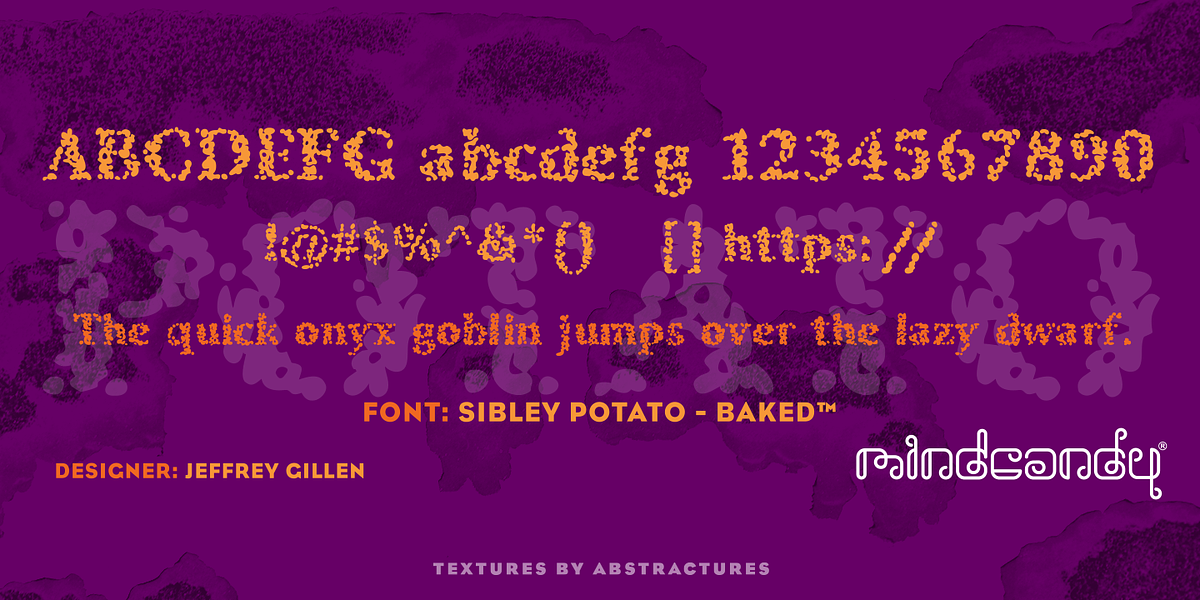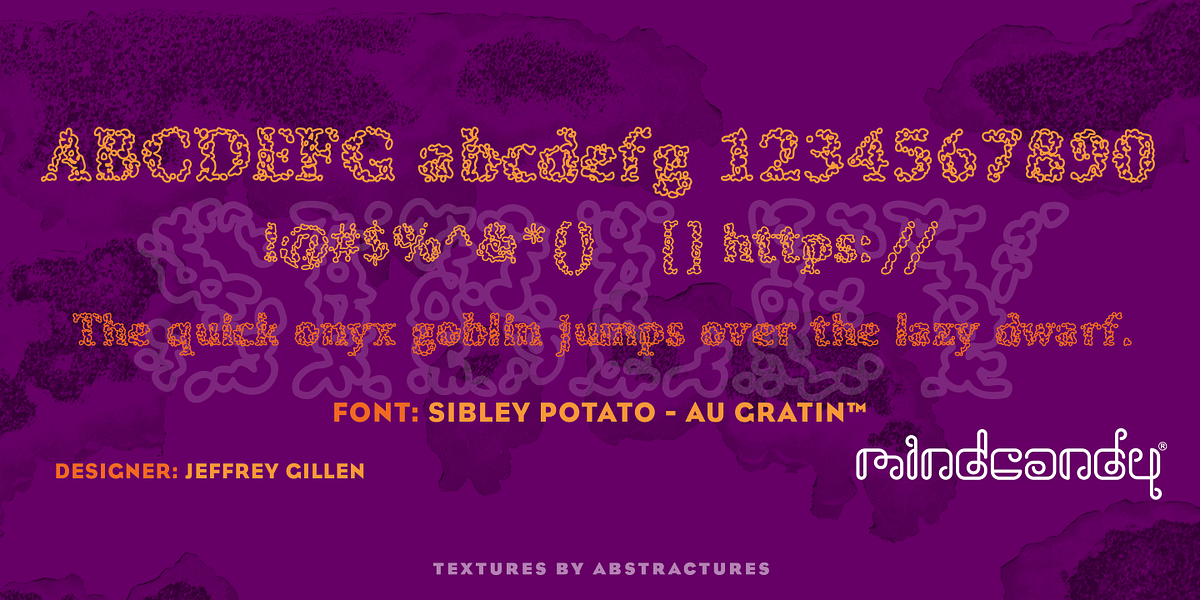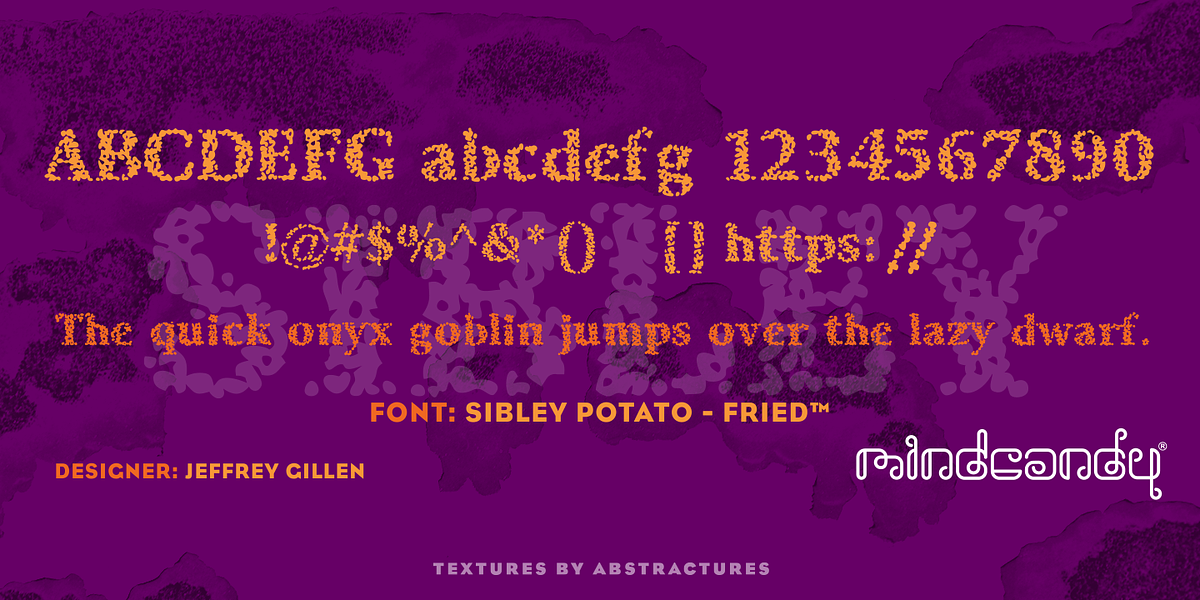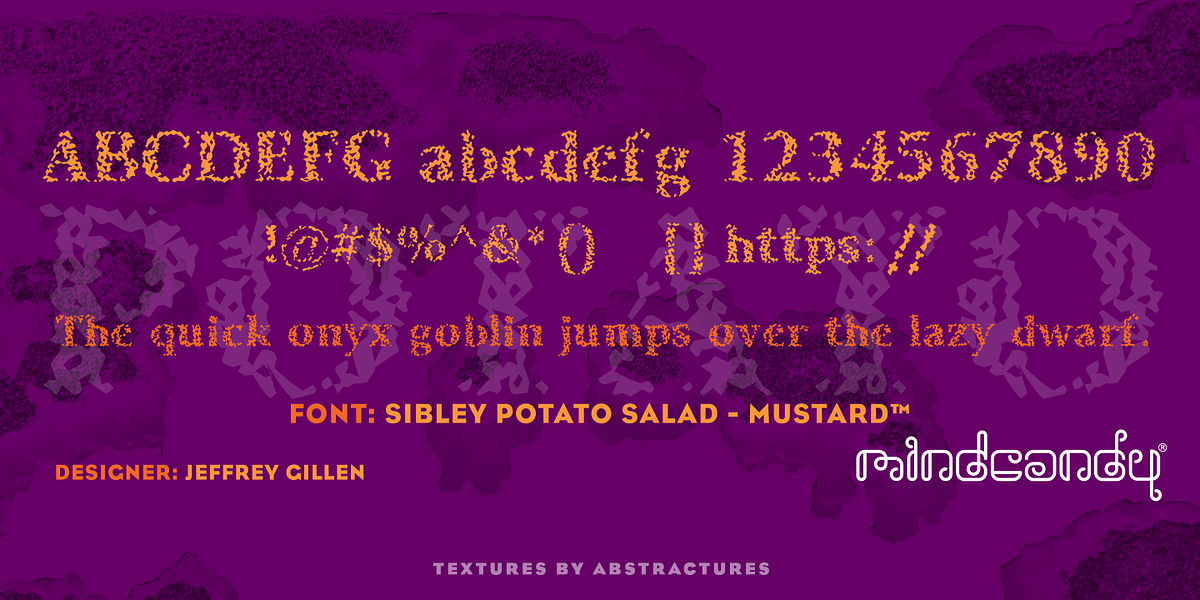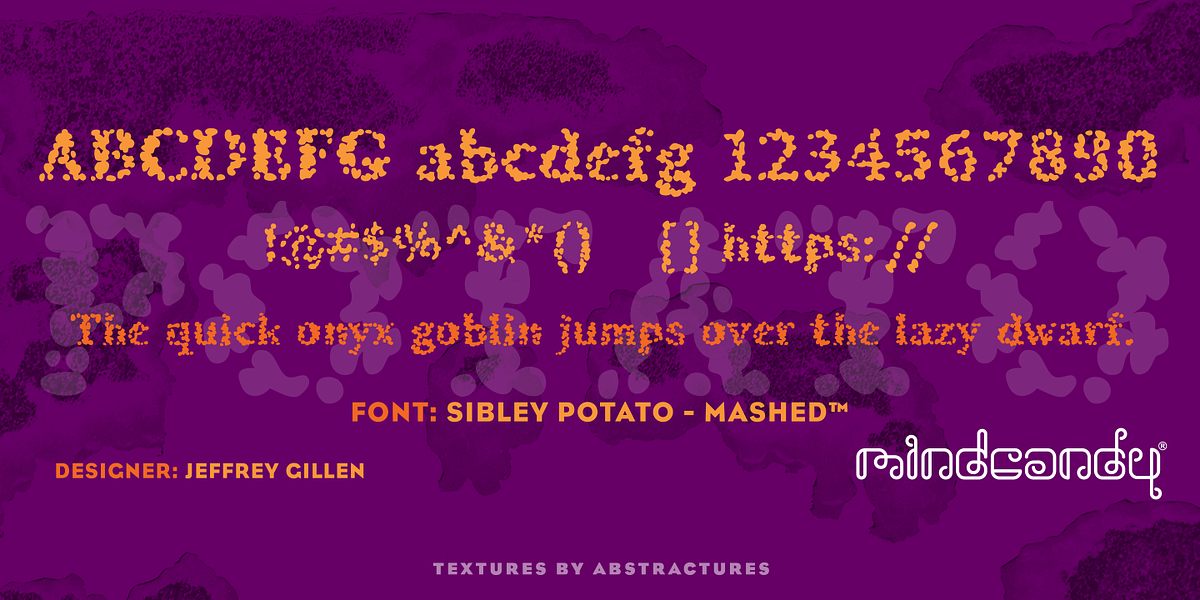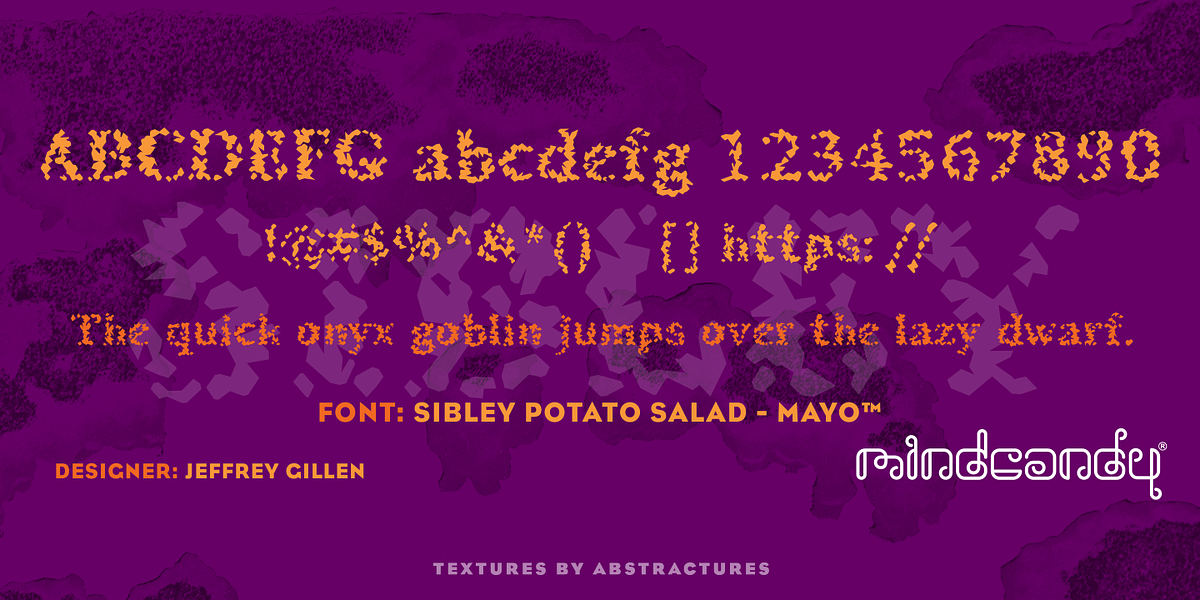
Sibley Potato™
This font is a novelty dingbat typeface designed by Jeff Gillen. It is characterized by its playful use of dots to create various shapes and symbols, making it ideal for headlines and decorative elements.